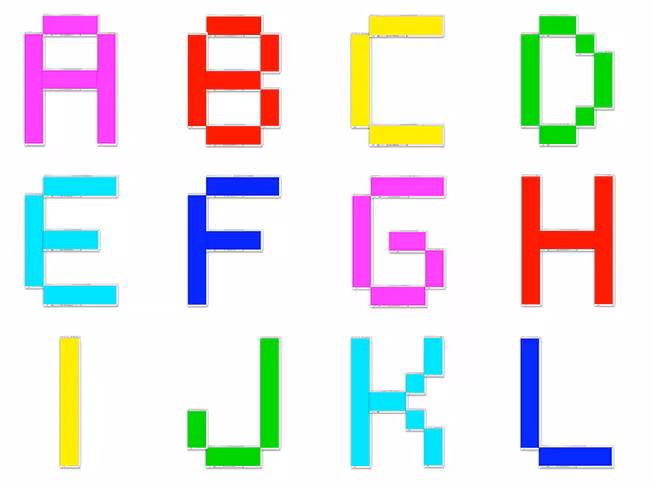
The Alphabet Font Created Using 114 Photoshop Files
TodayAndTomorrow alerted us to this really clever font made by Emilio Gomariz that was created by arranging 114 Photoshop files.
Knowing that Photoshop would memorize the position of any file when minimised and maximised, Gomariz used six colours to create 114 files.
Using one file for the letter “I” to nine for the letter “X”, he then captured the screen as he maximised each file – this was the result.